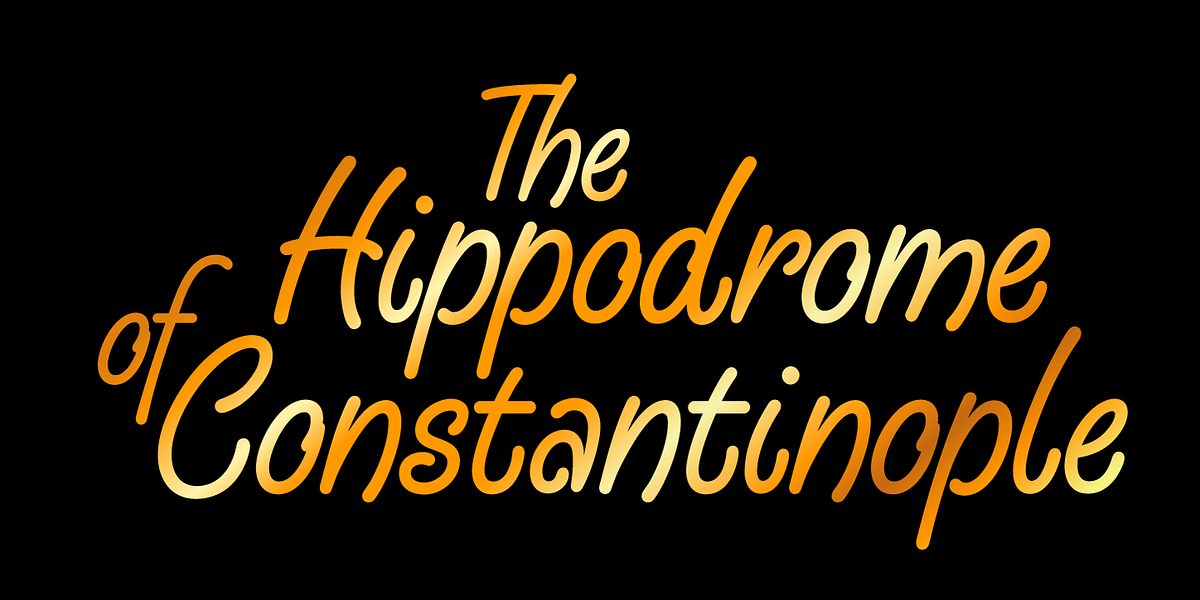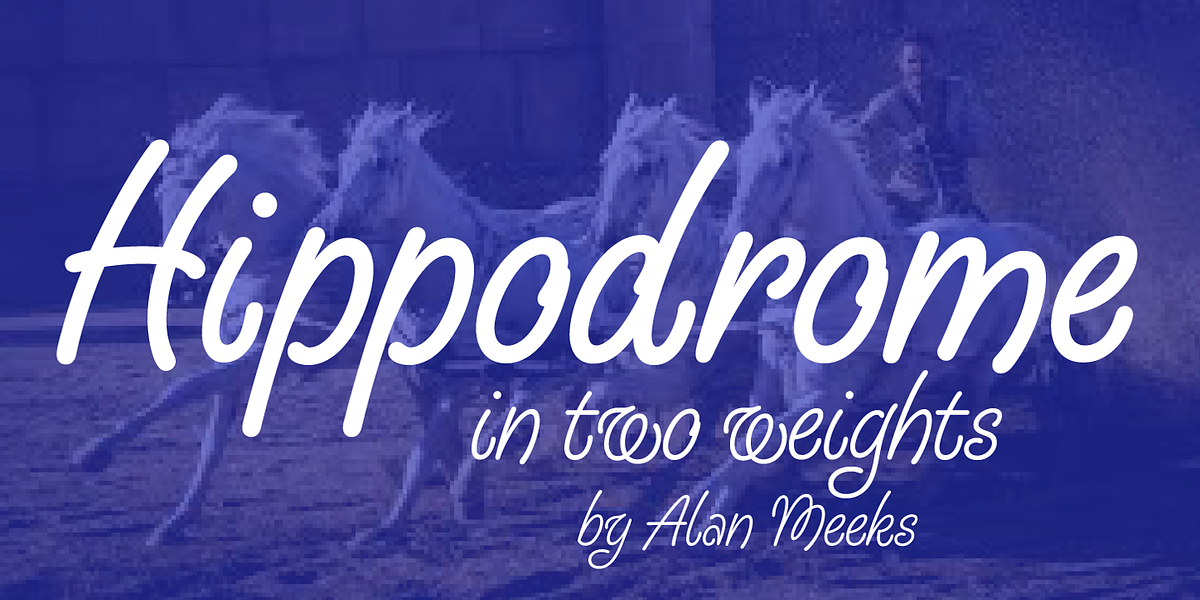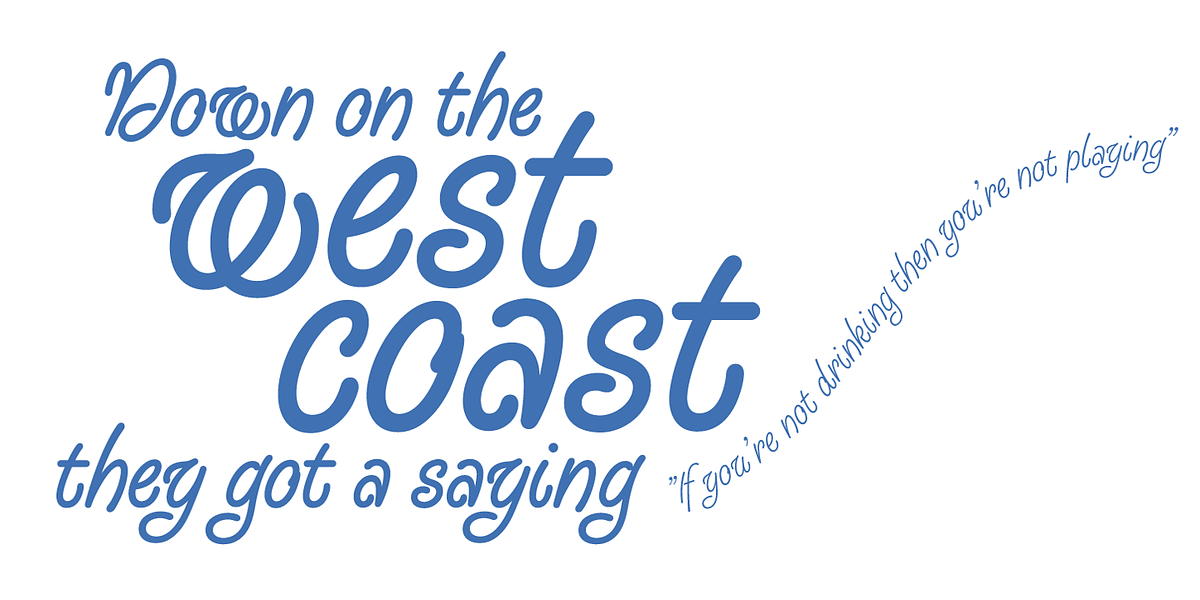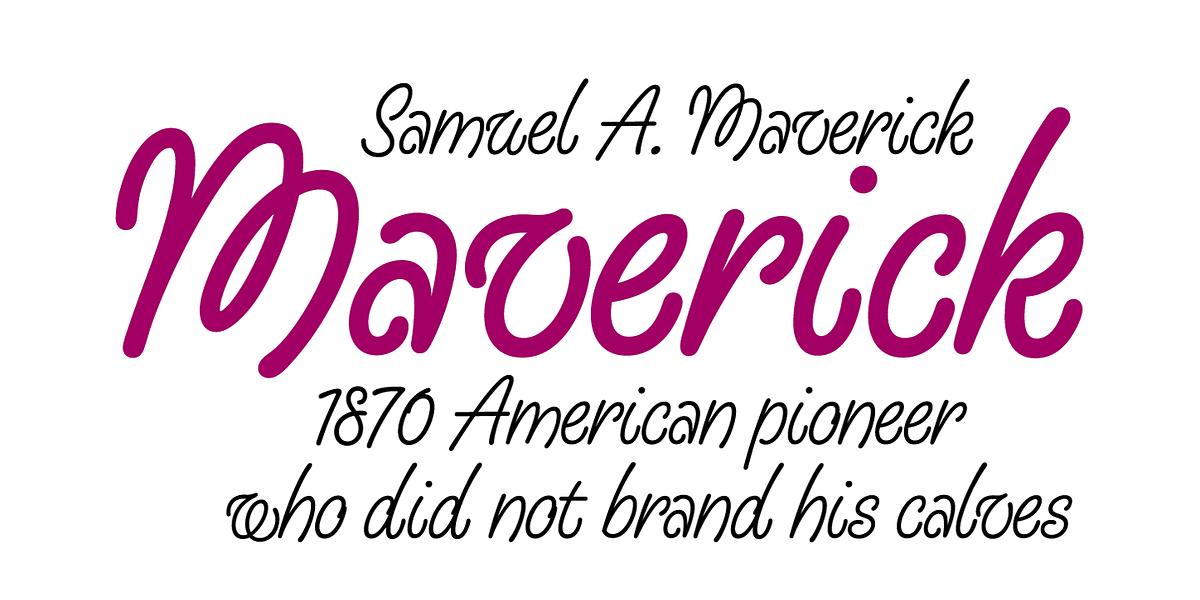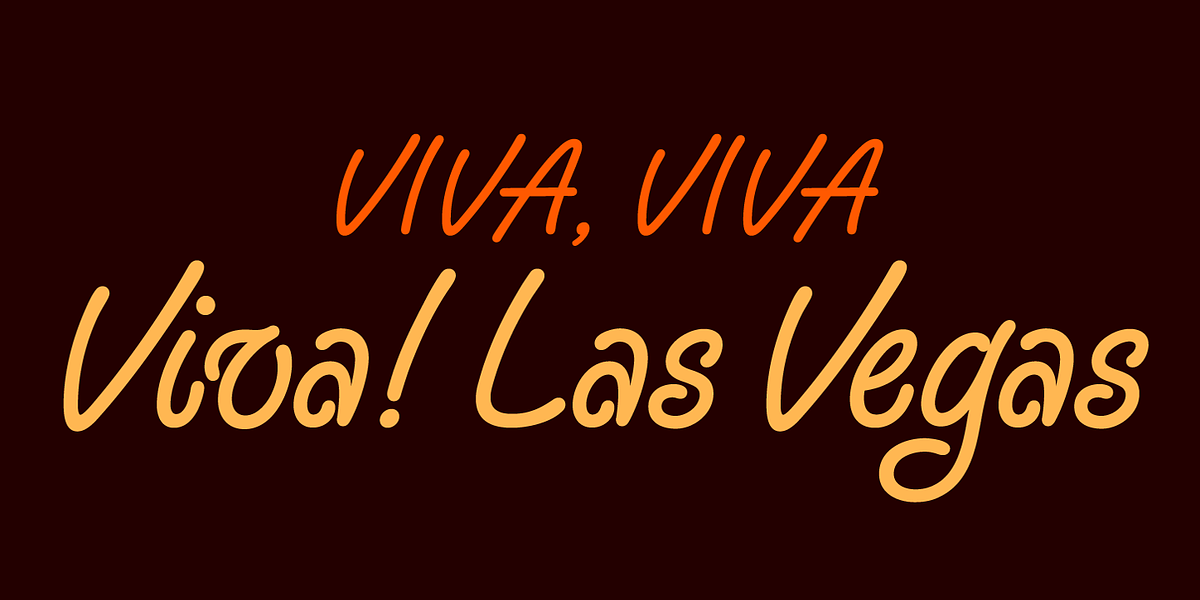
Hippodrome
The Hippodrome typeface is a casual script font designed around a unique lowercase 'w'. The designer notes that the remaining lowercase letters and capitals followed naturally from this initial design. The result is a flowing script typeface with two weights.